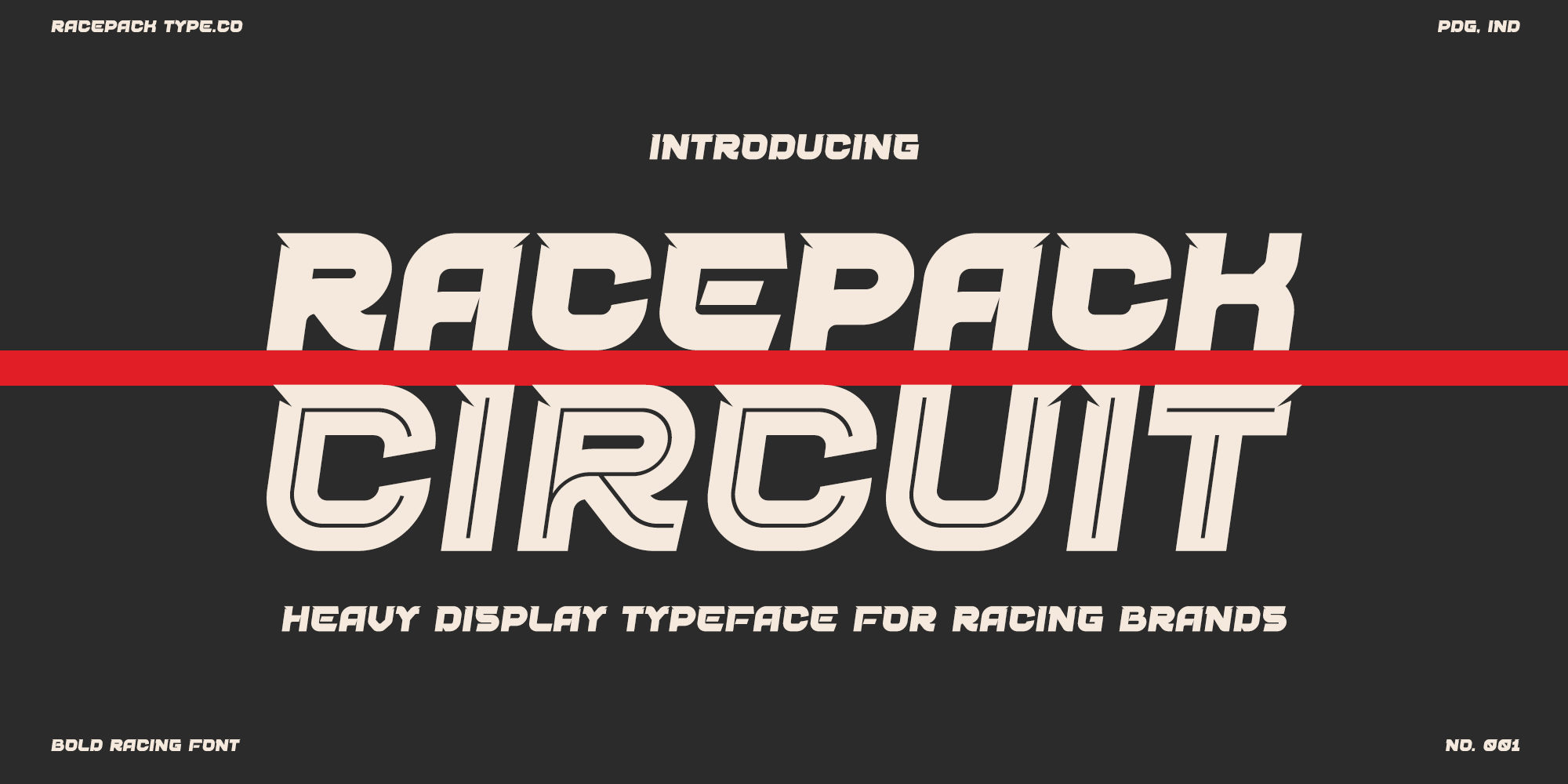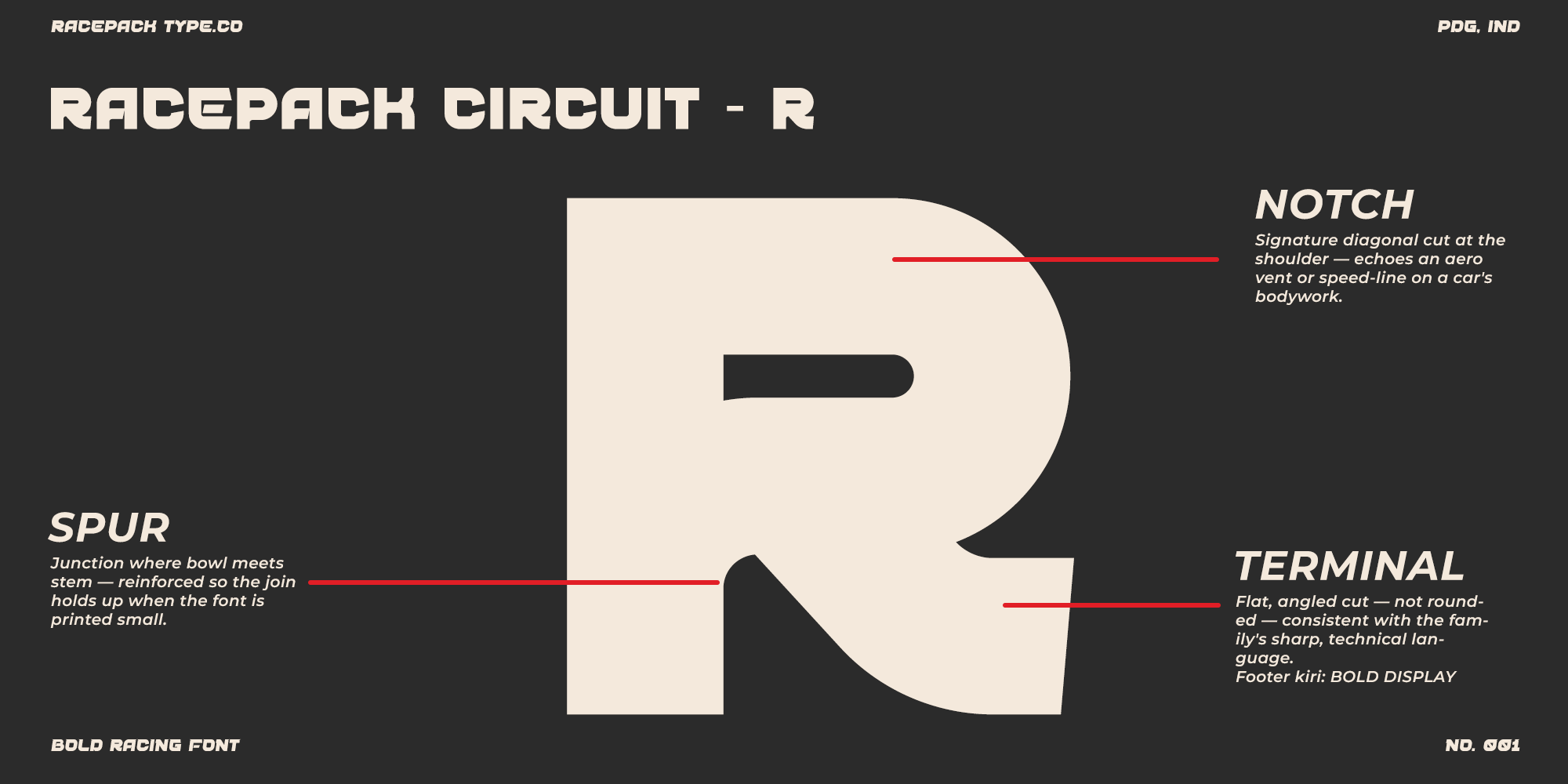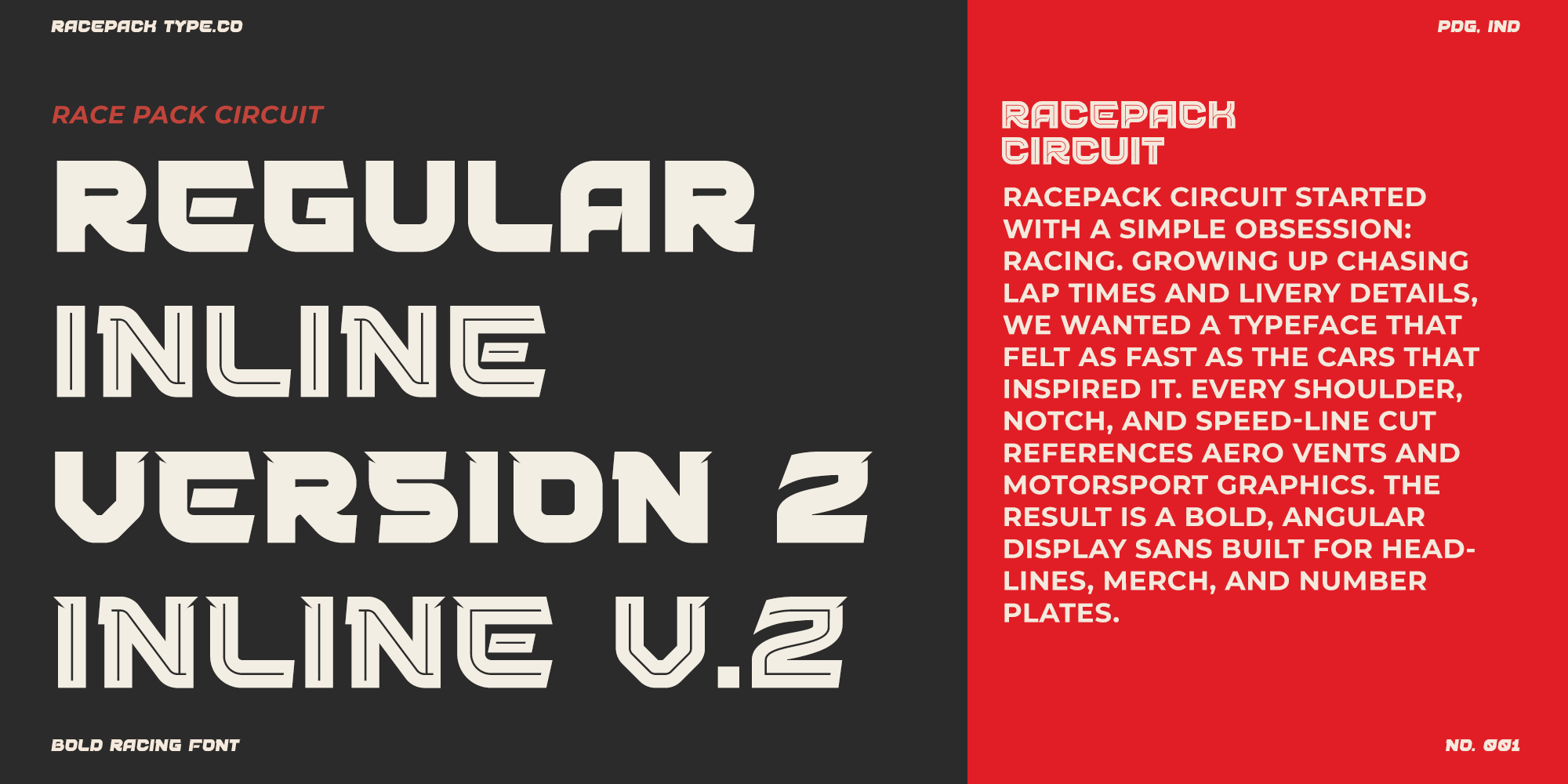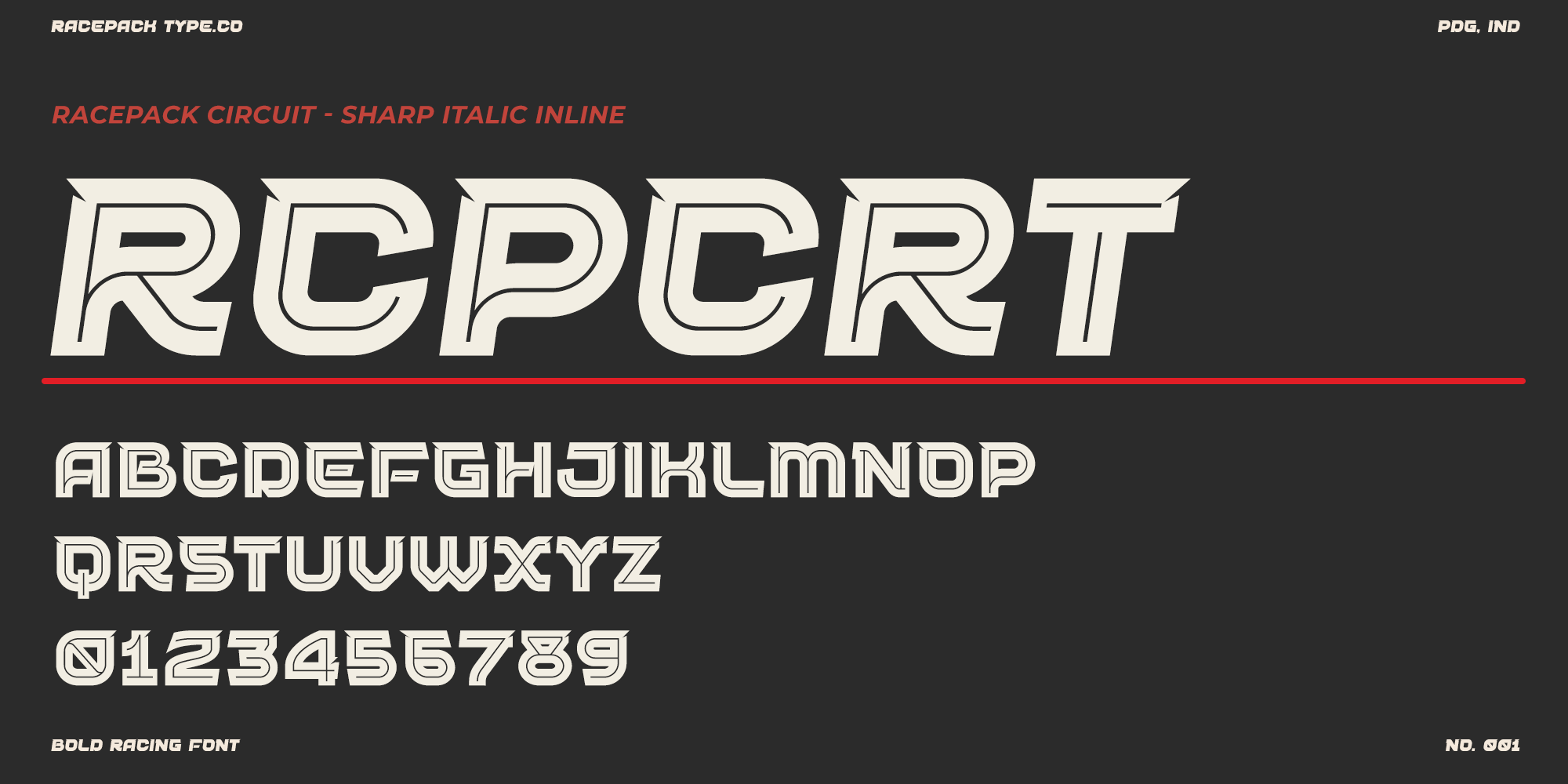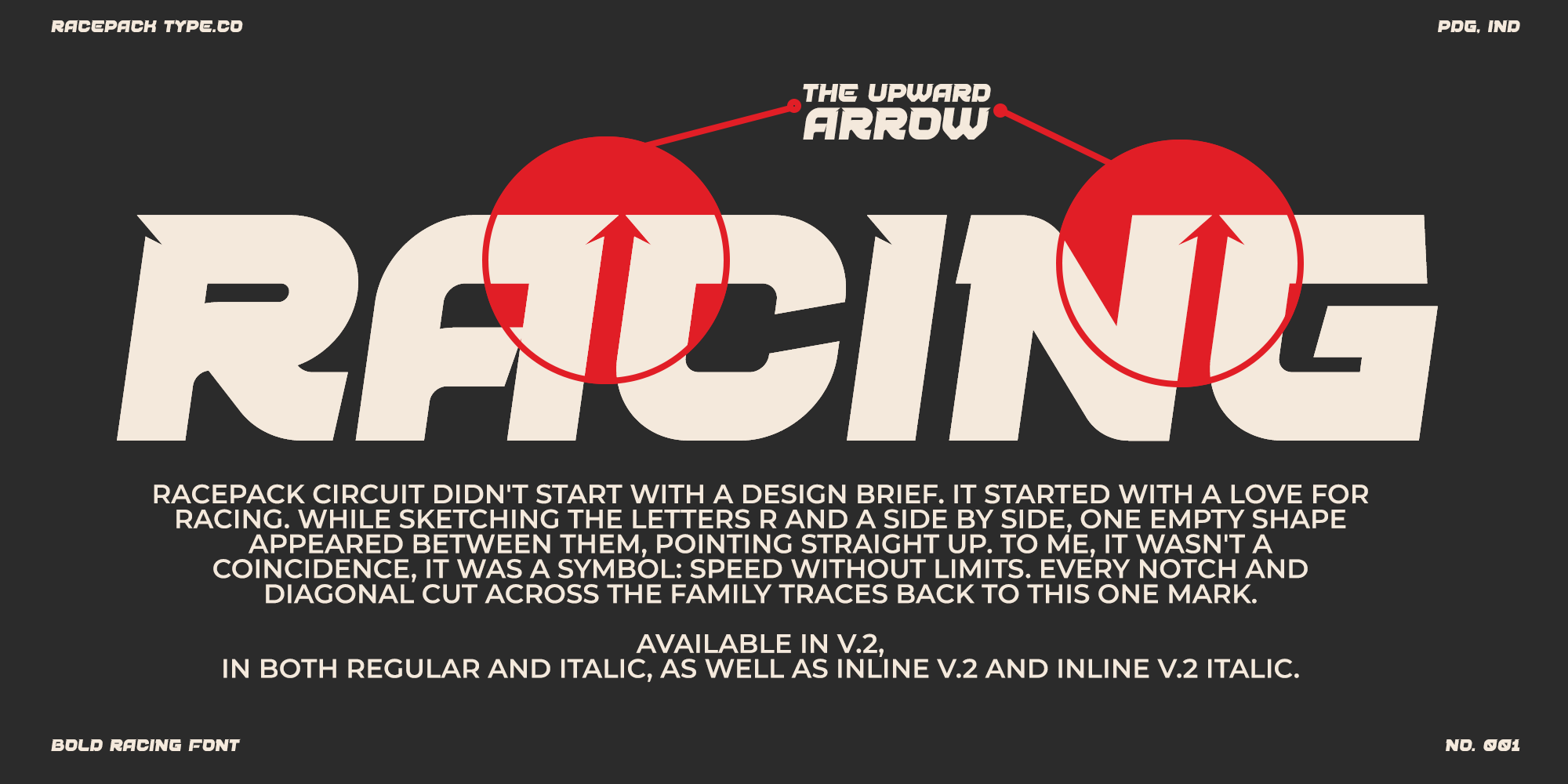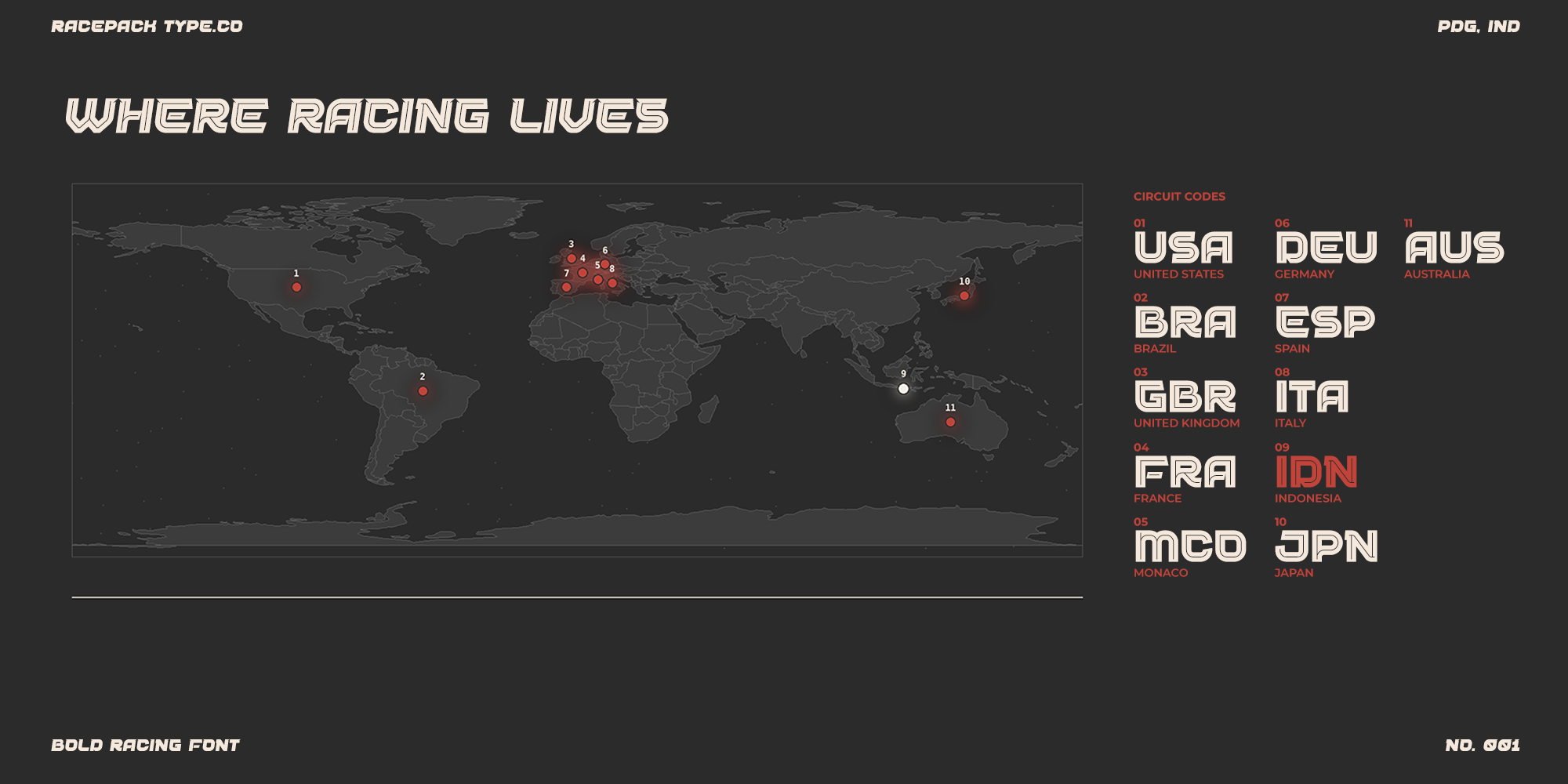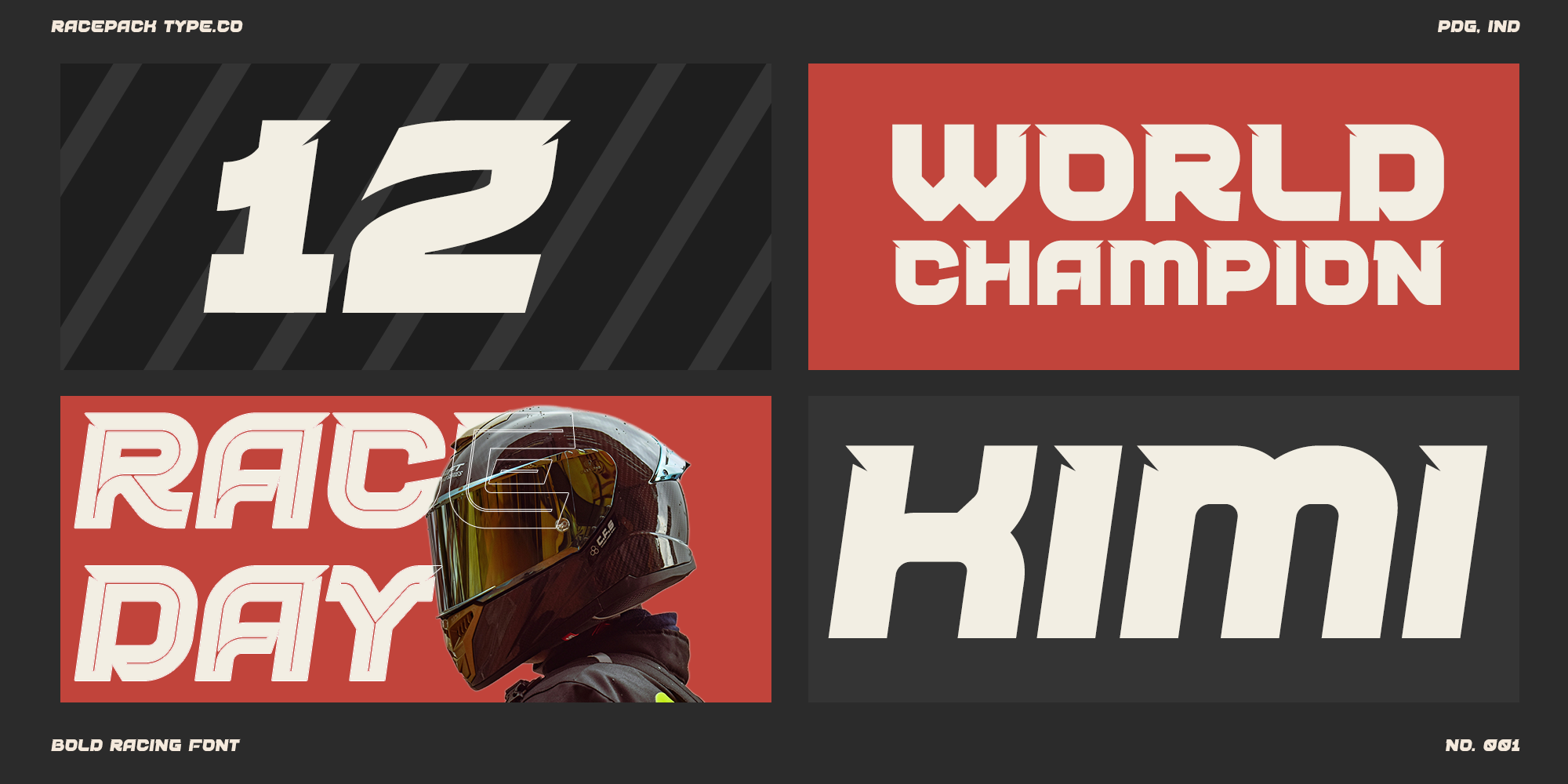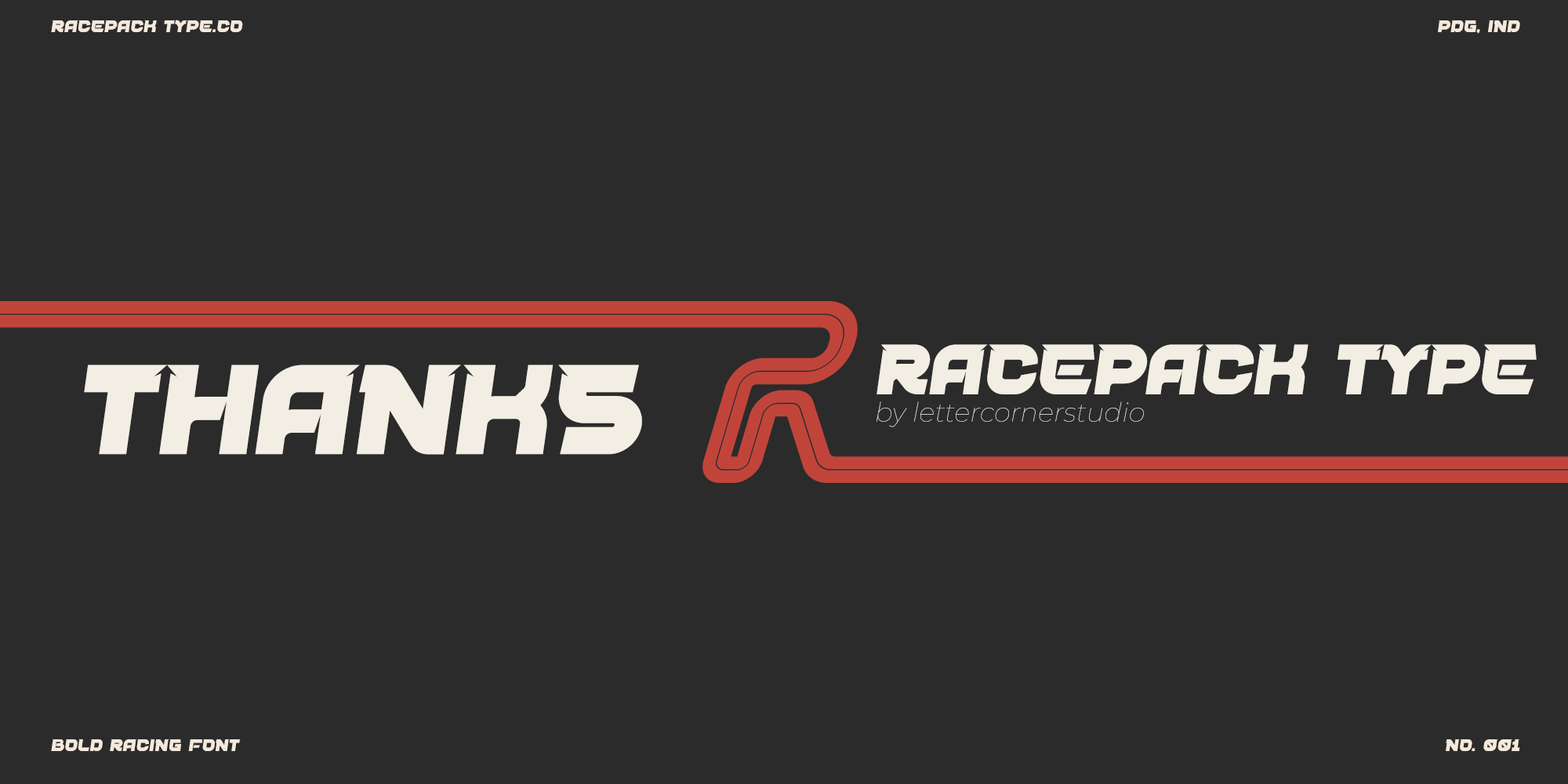
Racepack Circuit — Bold Display Font for Racing & Motorsport Brands by Racepack Type Co.
Built for speed, styled for the track.
Racepack Circuit is a bold, angular display typeface built for racing teams, automotive brands, and anyone who needs type that looks fast standing still. Every letter carries a signature diagonal notch at the shoulder — a nod to aero vents and speed-lines on a race car's bodywork — giving the whole family a sharp, technical edge without losing readability.
Whether you're branding a livery, launching merch, designing event posters, or building a racing dashboard UI — Circuit is built to handle it.